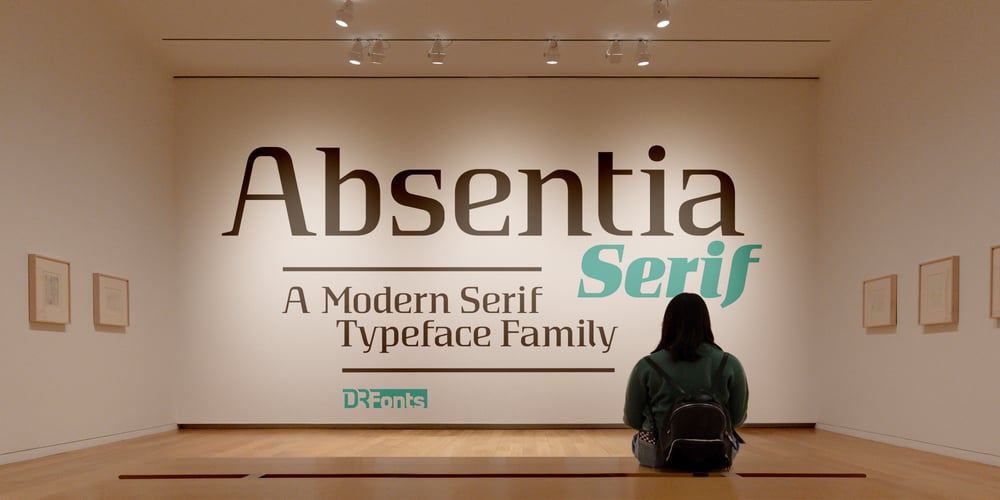
Absentia Serif
Absentia Serif font
Absentia Serif Font Family was designed by Daniel Robichaud and published by DR Fonts. Absentia Serif contains 22 styles and family package options. The Absentia collection welcomes this modern serif option to broaden its typographic horizons and offer designers greater versatility. The new member shares the traits and proportions that sets this family apart, such as the truncated capital ‘A’ apex, the calligraphic ‘l’ and the distinctive ‘g’. Yet Absentia Serif adds its own personality to the mix, integrating forward-looking attributes into traditional letterforms.Laid out as bilateral or one-sided configurations, the transitional serifs help maintain a tight, orderly baseline. The balanced stroke contrast increases in the bolder weights and exudes an elegant appearance. This finely crafted typeface promotes legibility at the smallest sizes and makes it the ideal solution for body text. Available in ten weights with matching italics and two variable fonts, Absentia Serif is loaded with OpenType features such as stylistic alternates, fractions, superscript, subscript, as well as standard and discretionary ligatures.